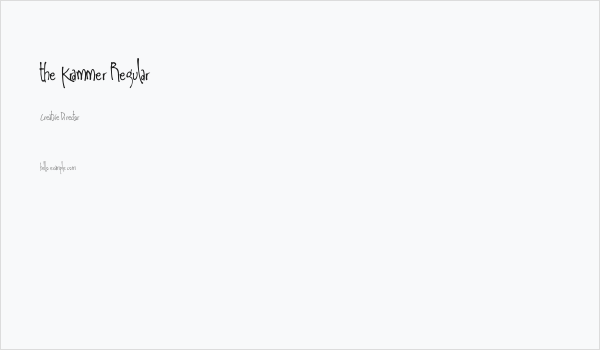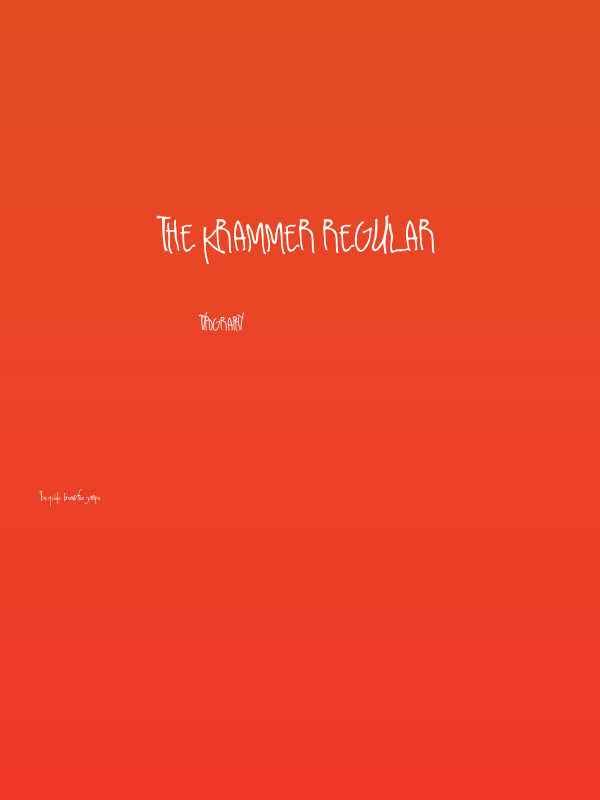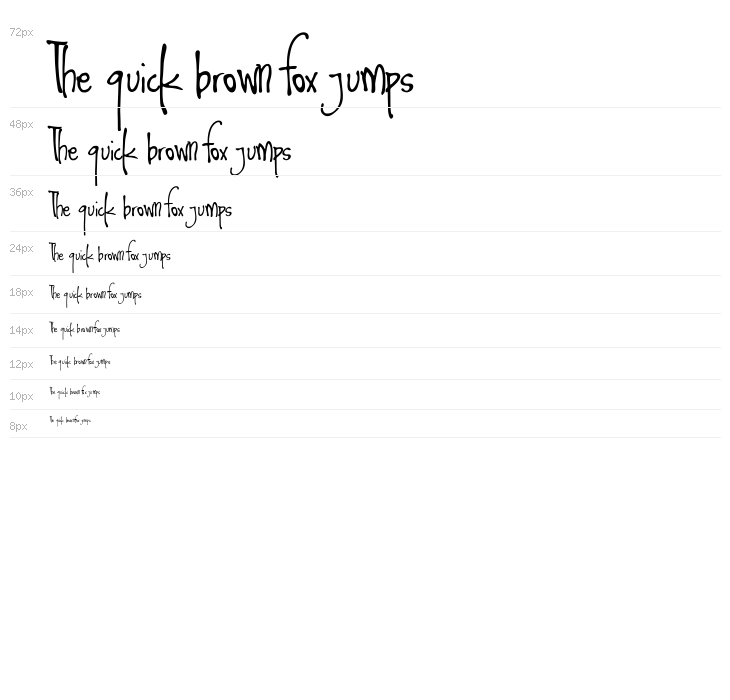
the Krammer Regular Font
the Krammer Regular Description
This font features a playful and whimsical handwritten style, characterized by its irregular and flowing letterforms. The strokes are uneven, adding a dynamic and energetic feel. The uppercase letters are tall and slightly narrow, with unique curves and angles that give each character a distinct personality. The lowercase letters maintain a consistent style, with some letters extending below the baseline, enhancing the casual and informal appearance. The font's overall aesthetic is creative and artistic, making it suitable for projects that require a personal touch.
| Proposed Projects | Ideal for greeting cards, invitations, children's books, and creative branding projects. |